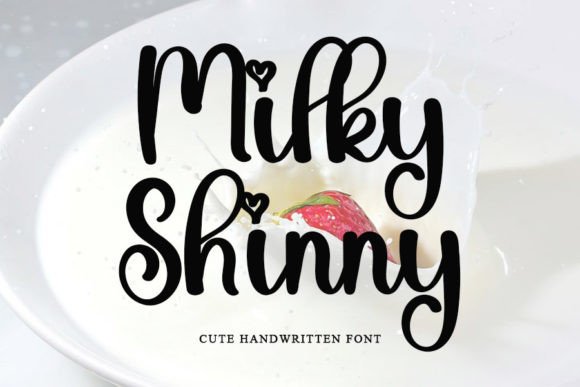
Unveil the Timeless Charm of Milky Shinny: A Font Family that Embraces Elegance and Authenticity
Immerse yourself in the world of Milky Shinny, a captivating script font family designed to evoke a sense of sophistication and timeless charm. Each letter, meticulously crafted with grace and fluidity, resembles the strokes of an expert calligrapher, leaving an imprint of refined artistry. Milky Shinny's elegant curves and delicate flourishes infuse your designs with a touch of luxury and refinement, making it the perfect choice for expressing sentiments of love, joy, and elegance.
As a script font family, Milky Shinny possesses an inherent casualness and approachability, making it ideal for adding a personal touch to any project. Whether you're crafting heartfelt invitations, designing captivating social media posts, or simply expressing your creativity through DIY projects, Milky Shinny effortlessly elevates your designs with its innate charm.
Unleash Your Creativity with Milky Shinny: A Font Family for Every Occasion
Milky Shinny's versatility is truly remarkable, as it seamlessly adapts to a wide range of creative endeavors. Its elegant strokes and refined aesthetics make it the perfect choice for branding and marketing materials, where it exudes professionalism and sophistication. Create logos, letterheads, and business cards that radiate elegance and leave a lasting impression on your clients.
For those with a passion for social media, Milky Shinny is the ideal font to make your posts shine. Its graceful curves and delicate details add a touch of charm to your Instagram stories, Facebook posts, and Pinterest pins, ensuring that your content stands out from the crowd. Engage your audience with visually appealing graphics and captivating quotes, all brought to life by the timeless beauty of Milky Shinny.
But Milky Shinny's allure extends far beyond the digital realm. Unleash your inner artist and explore the endless possibilities of DIY projects with this versatile font. Design personalized greeting cards, create stunning wall art, or add a touch of elegance to your home décor with framed quotes and wall decals. Milky Shinny transforms the ordinary into the extraordinary, turning your creative visions into tangible works of art.